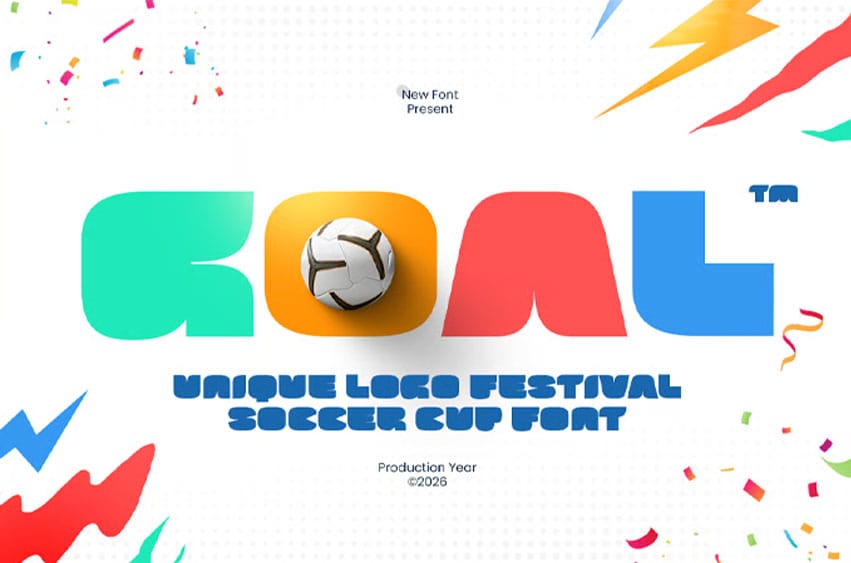
Goal Font Unique Logo Festival Football Cup Font GOAL is a unique logo font inspired by the excitement, energy, and global celebration of world-class football festivals. Featuring bold letterforms, dynamic shapes, and a festive sporty style, GOAL is perfect for football logos, event branding, tournament promotions, merchandise, posters, and fan-based creative projects.
Designed to capture the spirit of international competitions, GOAL delivers a vibrant and energetic visual identity while maintaining strong readability. Its distinctive character makes it ideal for sports events, fan festivals, team branding, and designers looking for a bold world cup-inspired font.
GOAL – Unique Logo Festival Football Cup Font Features:
- Unique sporty and festive style inspired by football events
- Ideal for logos, tournaments, and event branding
- Bold dynamic letterforms with energetic feel
- Perfect for football, festivals, merchandise, and sports visuals
Celebrate the game with GOAL – the unique Football cup festival font built for bold and energetic designs.